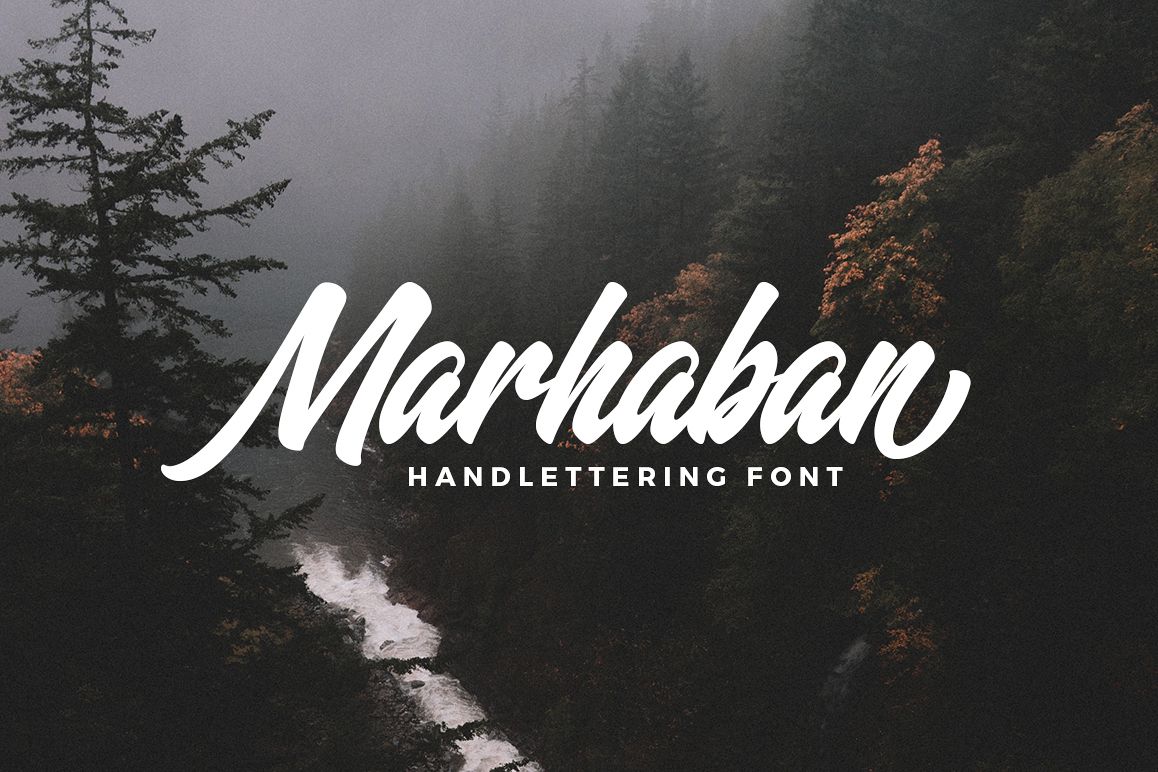
Marhaban Font
Introducing Marhaban
A handpainted script typeface with a great rhythm and good style perfect for logotype, apparel design, letterhead, and etc.
Marhaban also have so many alternative style on ligature, discreationary ligature, stylistic style, and additional swash font to allow you make custom design like a lettering or handmade typography in an instant.